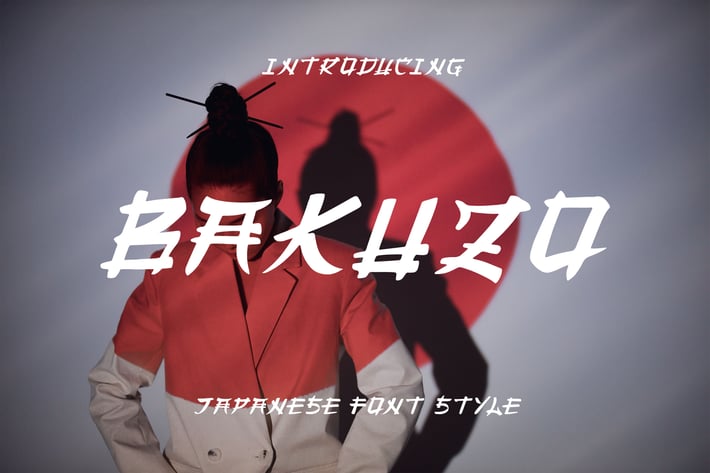
Bakuzo - Japanese Font Style
Introducing Bakuzo, is a Japanese Font Style has many purpose and suitable for Japanese event, Japanese advertising, Japanese badges, logotype, fashion and much more.